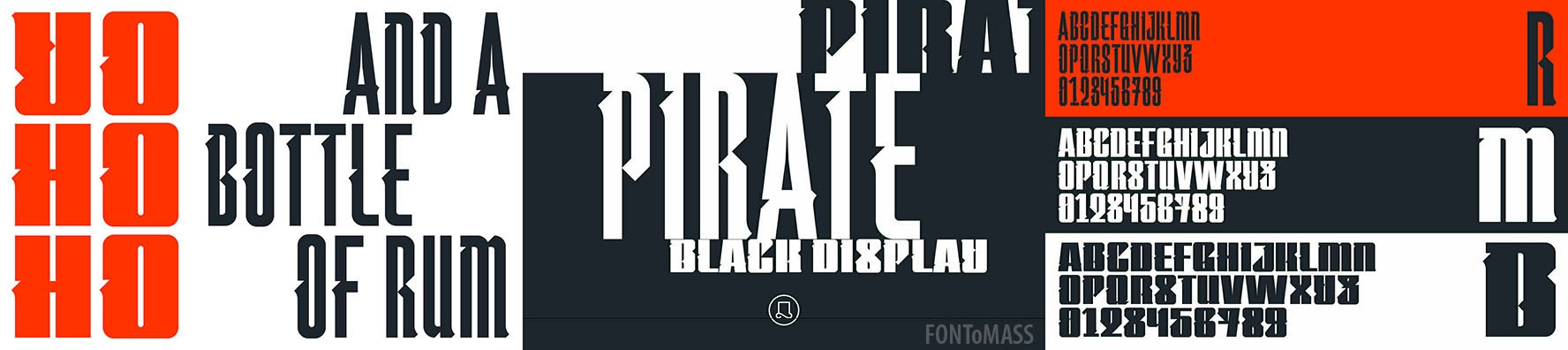
Pirate Black Display Font
Pirate Black Display Font is perfect for adventure-themed entertainment venues, maritime museums, pirate-themed restaurants, treasure hunt gaming, nautical adventure companies, seafaring escape rooms, maritime festival promotions, adventure tourism marketing, historical maritime displays, and authentic pirate culture branding.
Pirate Black Display Font creates excitement because it embodies the bold adventure and maritime rebellion of classic pirate culture with its commanding letterforms and seafaring-inspired character design. The font's rugged presence and nautical aesthetic instantly convey adventurous spirit and maritime authenticity, making any brand appear boldly adventurous and genuinely connected to pirate heritage. Its carefully crafted maritime details and rebellious character create an immediate sense of seafaring adventure that captivates audiences seeking pirate experiences, maritime quality, and products that celebrate the transformative power of nautical adventure and pirate spirit.
The Pirate Black Display Font family includes multiple weights and styles: Regular, Bold, Black, Ultra Black, Light, Medium, Italic, Condensed, Extended, and Seafaring versions. Each variant maintains the font's signature pirate character while offering different levels of maritime styling and adventure authenticity suitable for various entertainment and nautical applications.
This adventurous typeface brings the authentic spirit of pirate culture into contemporary maritime design with remarkable boldness and seafaring appeal. Pirate Black Display Font Free Download provides adventure brands and maritime organizations with access to premium pirate-inspired typography that embodies the essence of nautical rebellion and seafaring excellence. The font's commanding design and pirate authenticity make it ideal for businesses seeking to establish meaningful connections with adventure-loving audiences who appreciate pirate culture, maritime history, and the transformative power of seafaring adventure that creates authentic maritime excitement. Whether you're creating branding for adventure venues, designing materials for maritime tourism, developing communications for pirate entertainment, or producing content for nautical heritage organizations, this font delivers the bold pirate atmosphere that resonates with audiences seeking genuine maritime experiences, adventure quality, and the rebellious spirit that comes from embracing authentic pirate culture. Its versatile design ensures outstanding performance across both rugged printed materials and dynamic digital adventure platforms while maintaining the character of authentic pirate typography. The font excels in applications requiring maritime credibility and adventure appeal. Entertainment professionals appreciate its ability to convey pirate authenticity while remaining highly functional for various maritime communications and adventure promotional materials. The comprehensive character set includes nautical symbols and extensive international language support, making it perfect for global adventure brands and international maritime organizations seeking to communicate authentic pirate culture, seafaring adventure, and maritime excellence to diverse worldwide audiences who embrace adventure living, appreciate pirate heritage, and value the transformative power of genuine maritime adventure that creates unforgettable experiences through bold exploration, seafaring courage, and the timeless spirit of pirate culture that celebrates freedom through nautical adventure and the endless pursuit of treasure and maritime glory.